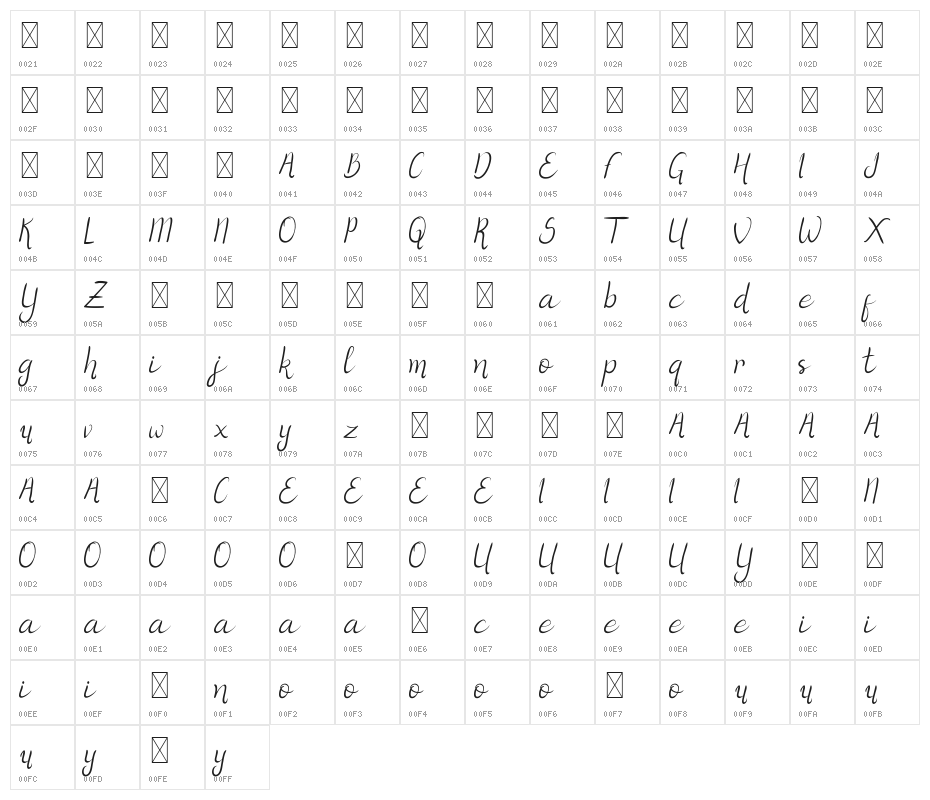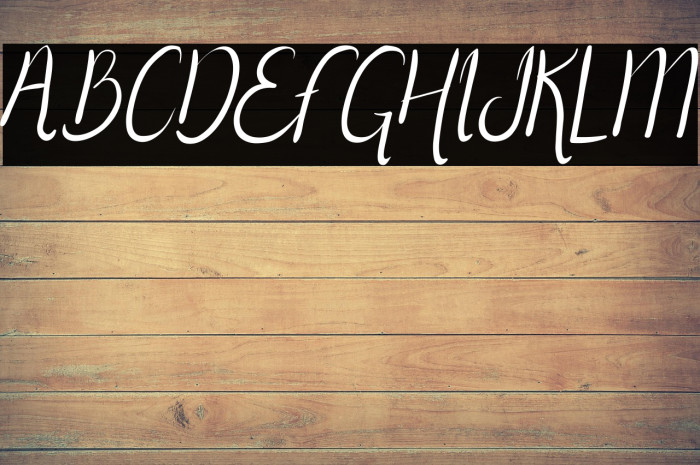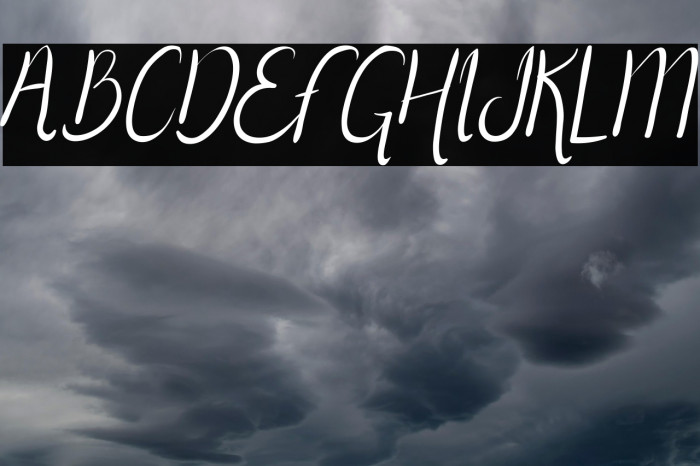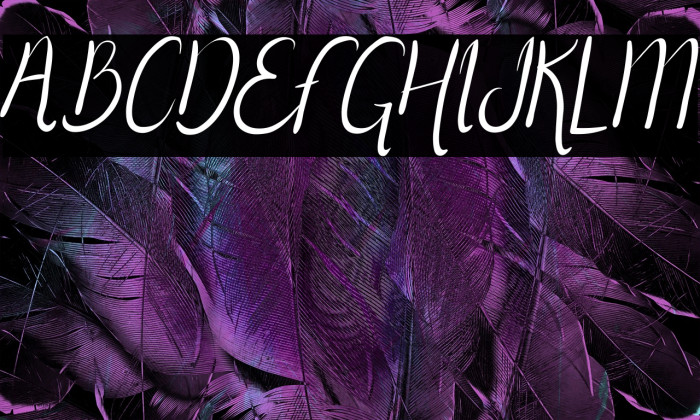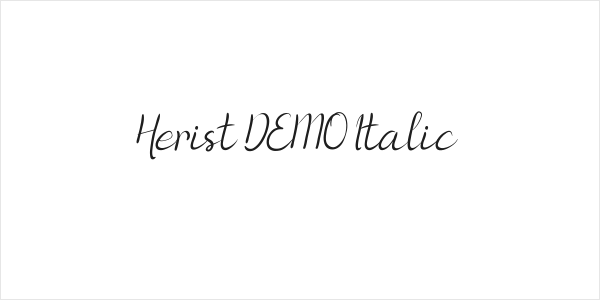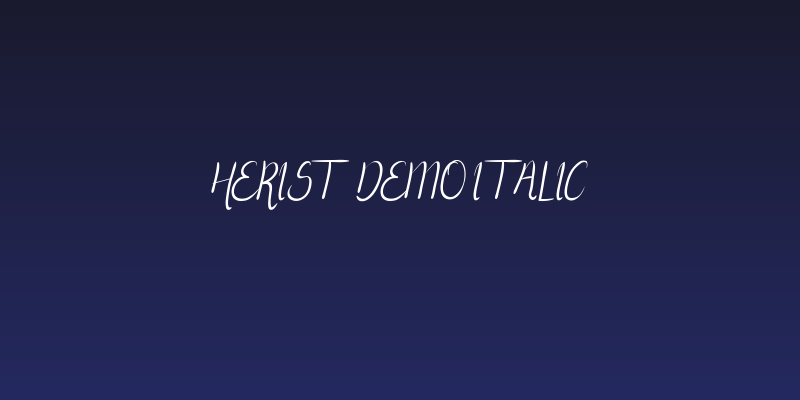
Herist DEMO Italic Font
Herist DEMO Italic Description
This font features an elegant and flowing script style, characterized by its smooth, cursive strokes and a slight slant to the right, giving it an italic appearance. The uppercase letters are tall and graceful, with distinctive loops and flourishes that add a touch of sophistication. The lowercase letters maintain a consistent flow, with rounded forms and delicate connections between characters. The overall design is both stylish and readable, making it suitable for a variety of creative applications. The font's aesthetic is reminiscent of handwritten calligraphy, offering a personal and artistic touch.
| Overall Style | Elegant, Artistic |